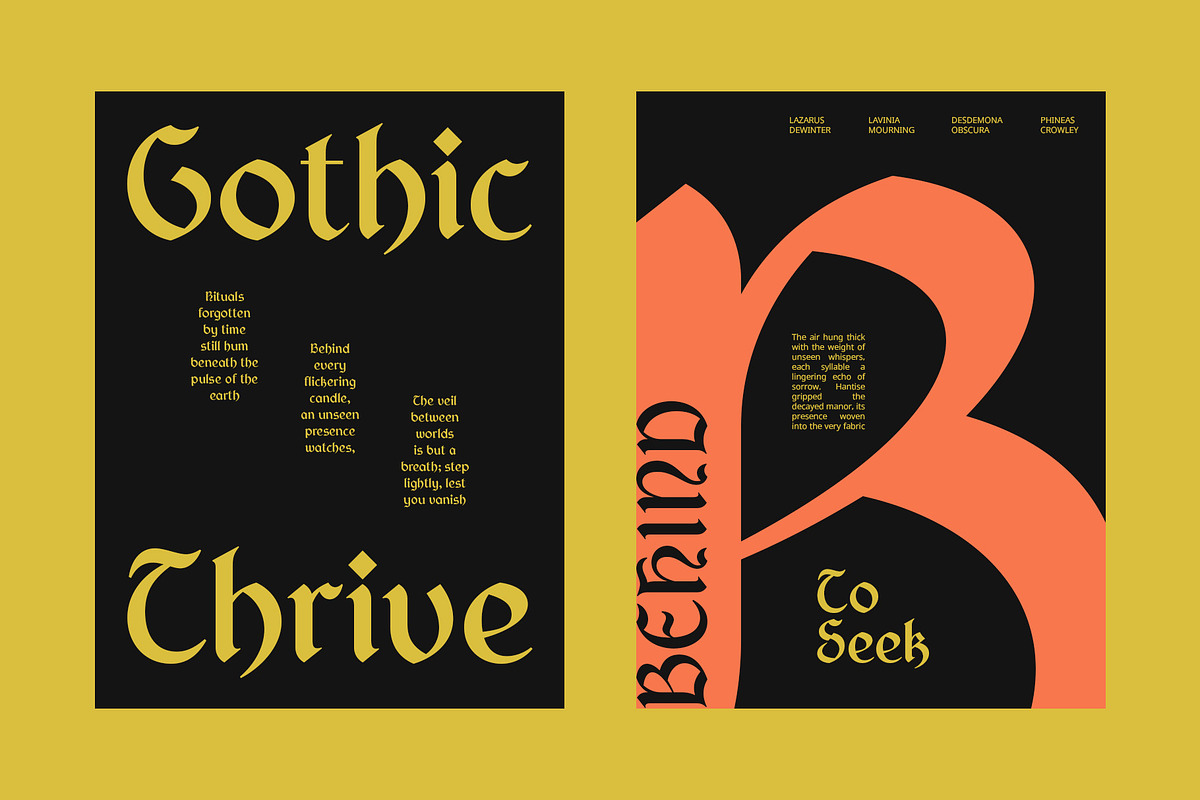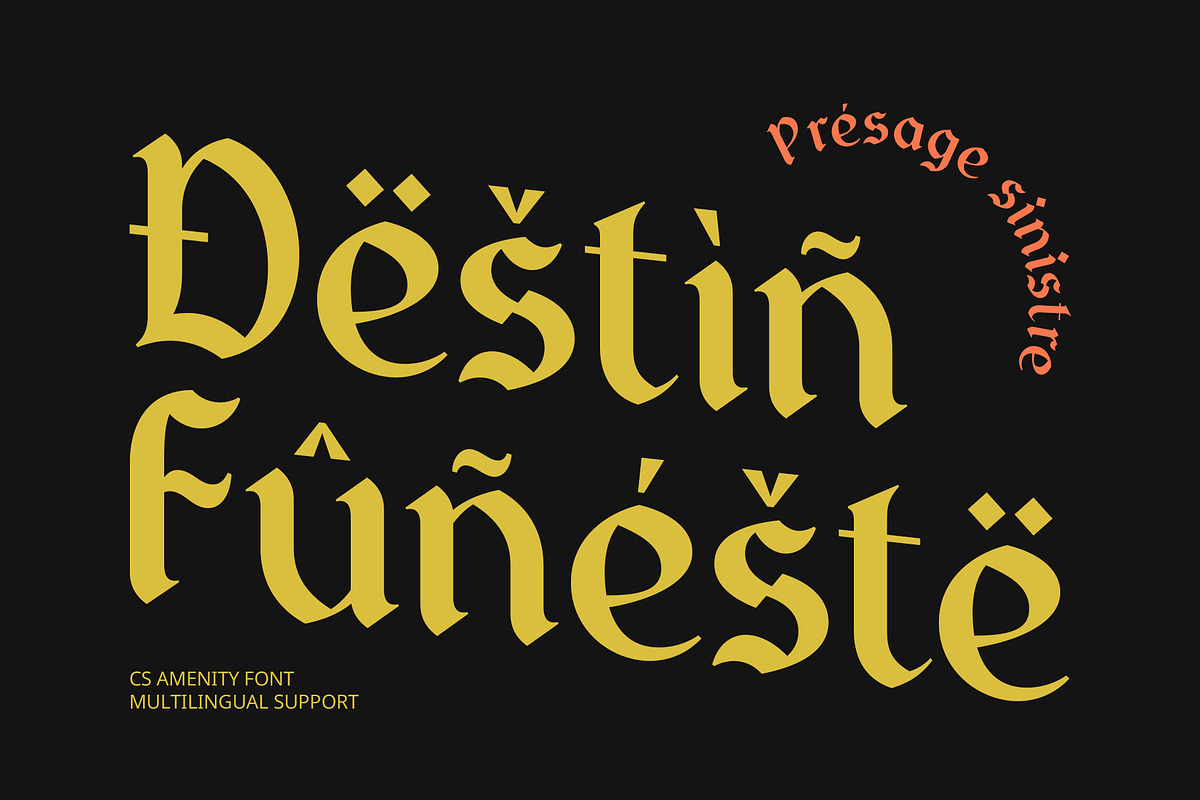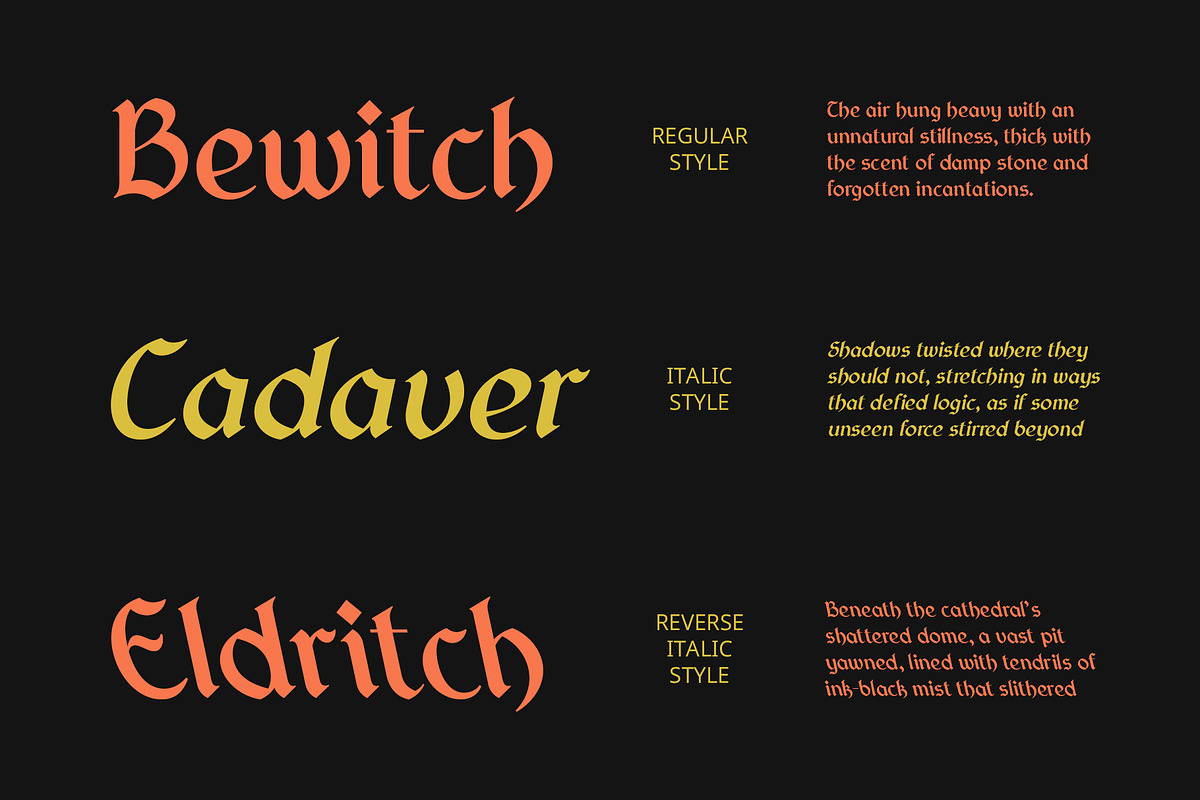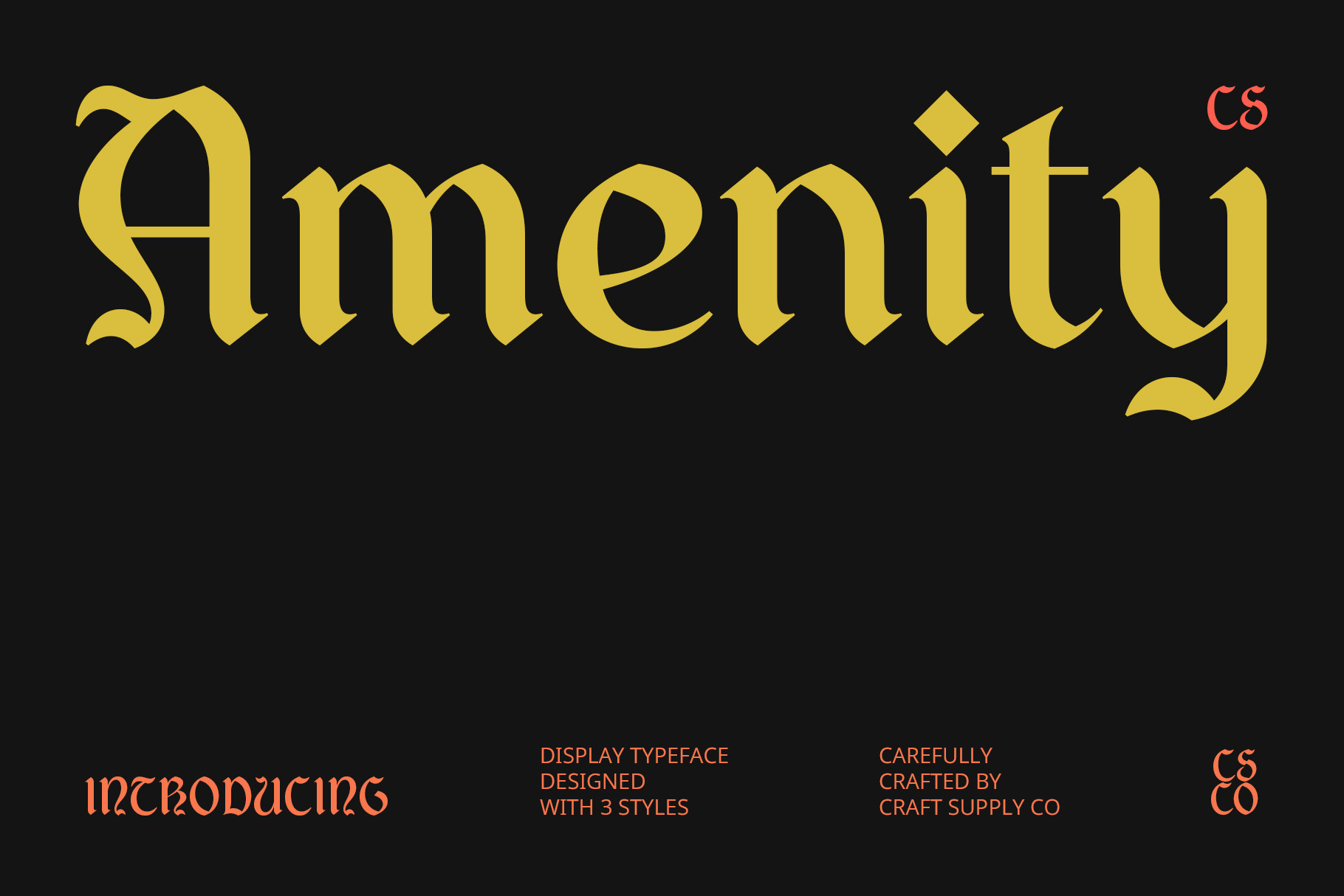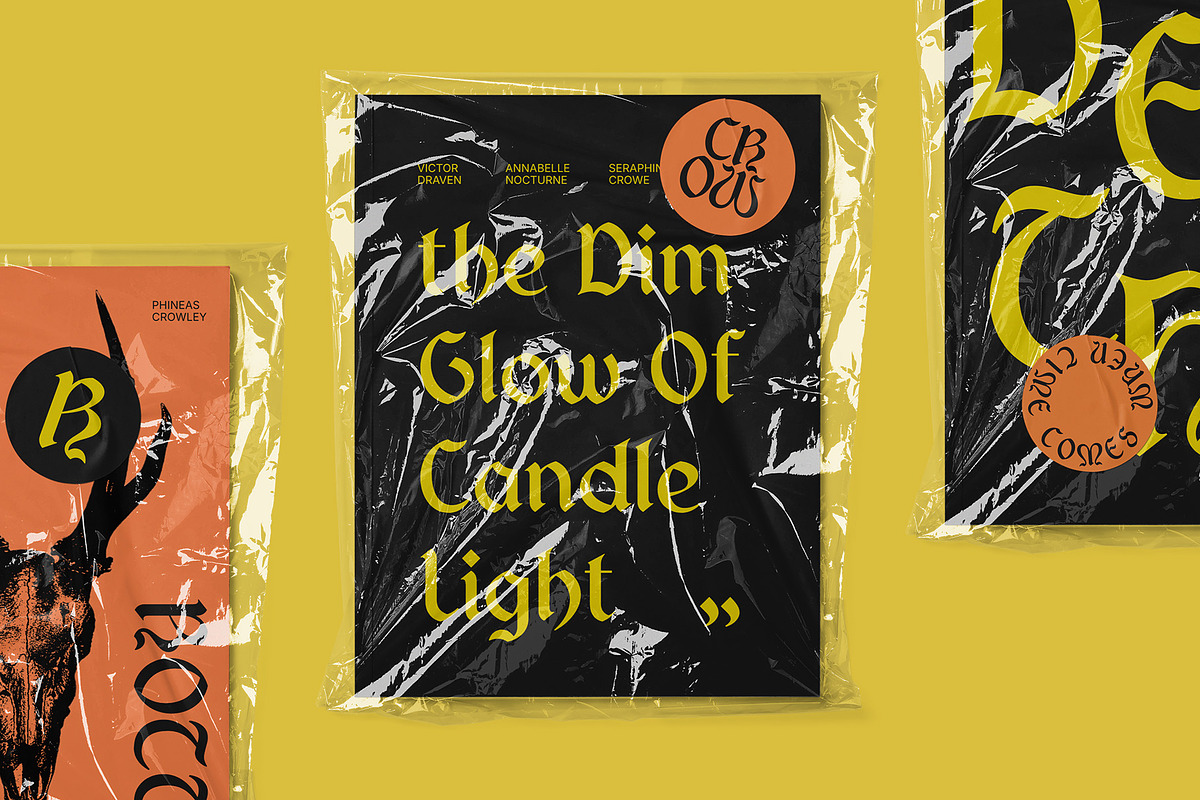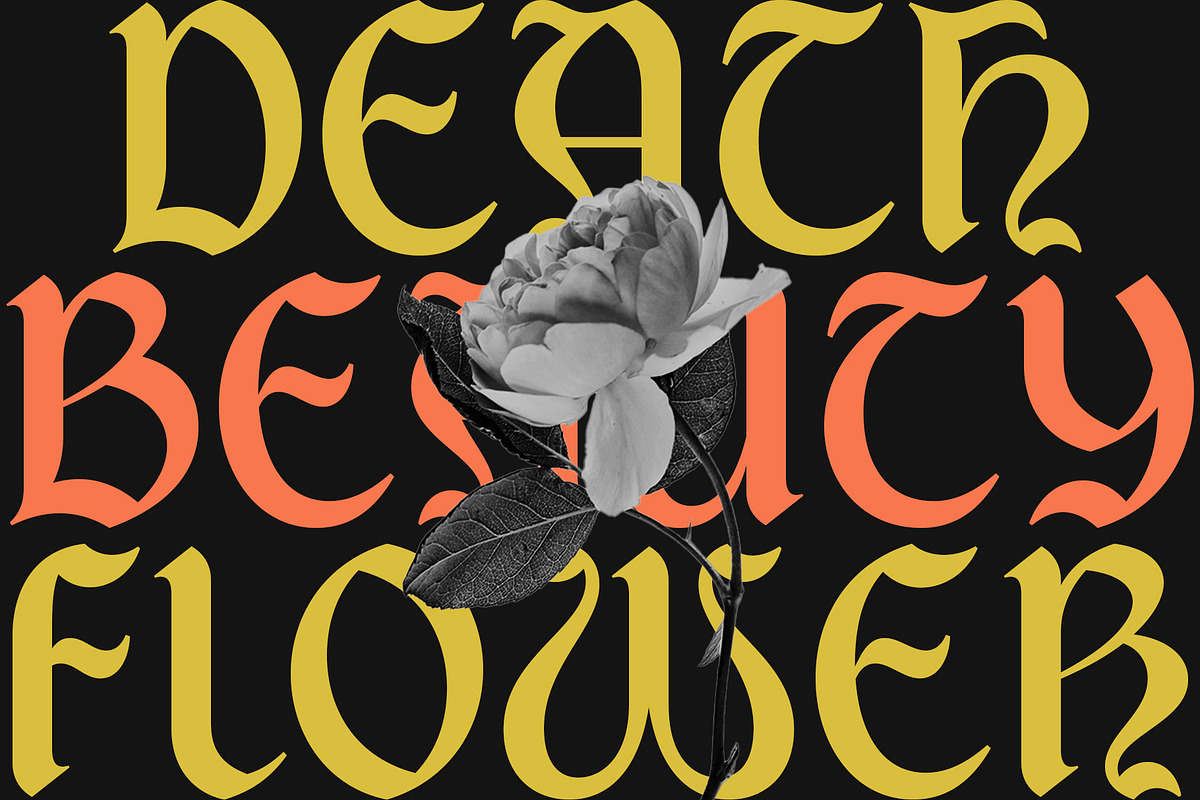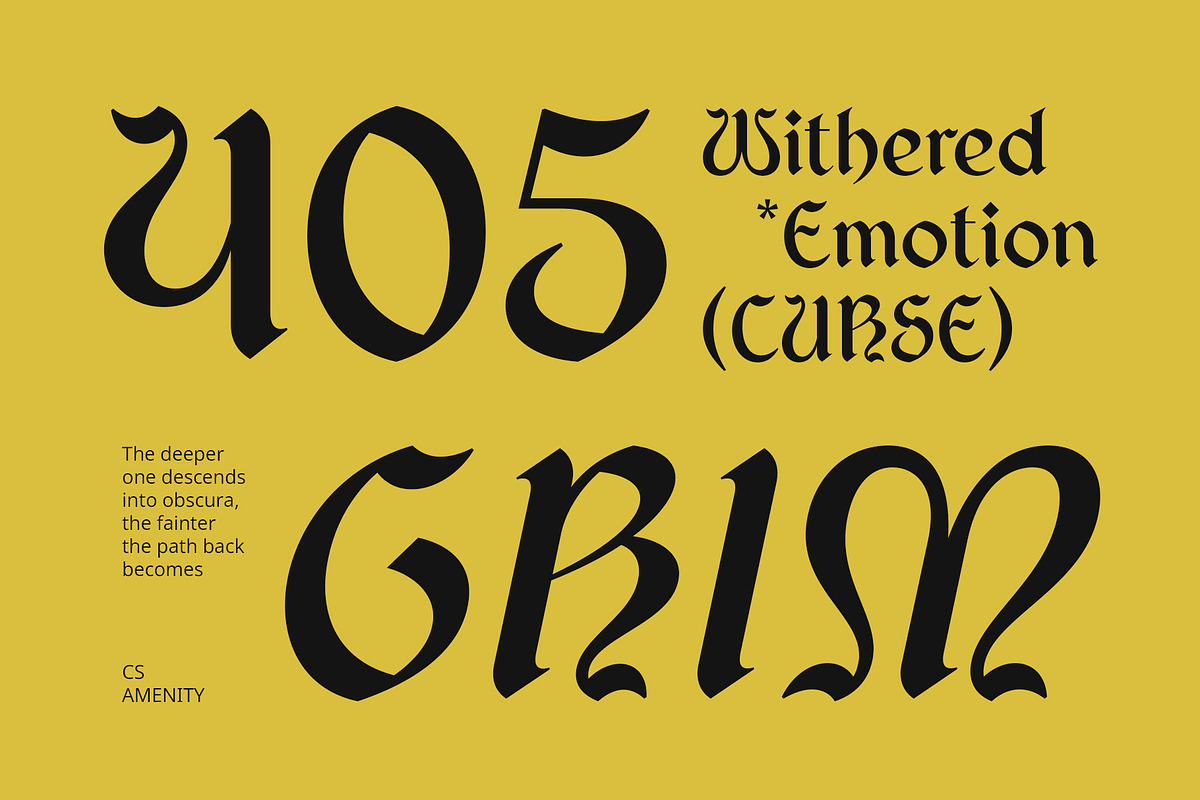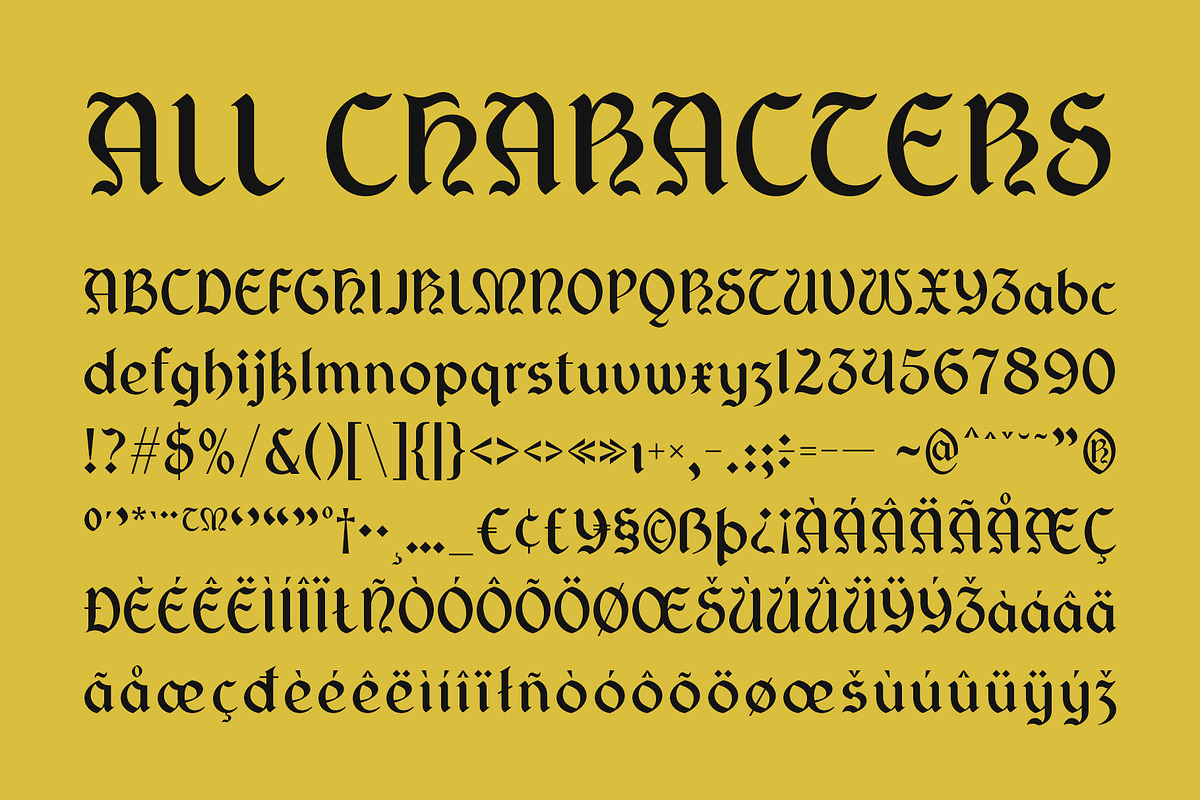
CS Amenity – Gothic Uncial Font
CS Amenity – A Gothic Uncial Font with Medieval Elegance
A Blend of Uncial and Gothic Styles CS Amenity is a display font that seamlessly merges the flowing curves of Uncial lettering with the bold, structured elements of Gothic typography. Inspired by medieval manuscripts and historical calligraphy, it features rounded letterforms, thick strokes, and ornamental flourishes, creating a striking balance between elegance and strength. Its distinctive style reflects the artistry of ancient scriptwriting while maintaining a modern, polished appeal.
A Mystical and Timeless Aesthetic With its intricate detailing and historical charm, CS Amenity evokes the rich atmosphere of medieval scrolls, ancient texts, and mythological inscriptions. The font’s bold yet graceful structure makes it an excellent choice for projects that aim to capture a mystical, legendary, and timeless aesthetic. Whether used for titles, decorative elements, or branding, it ensures an instantly recognizable and dramatic visual impact.
Perfect for Fantasy and Historical Designs CS Amenity is an ideal choice for fantasy-themed branding, historical book covers, medieval-inspired posters, and mythology-related artwork. Its ability to transport viewers to a world of knights, castles, and folklore makes it highly suitable for role-playing games, historical documentaries, and film titles. Whether you’re designing for literature, entertainment, or immersive storytelling, this font enhances the authenticity and grandeur of your project.
- CS Amenity Regular
- CS Amenity Italic
- CS Amenity Reverse Italic